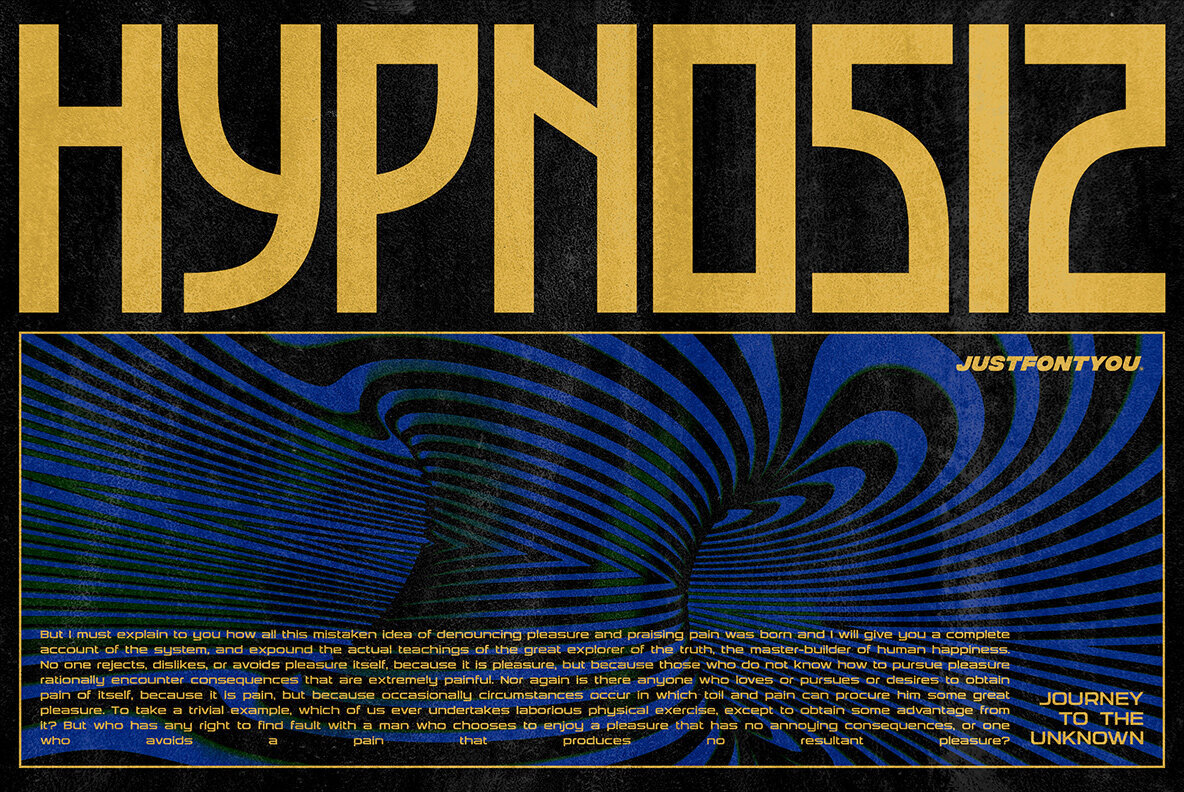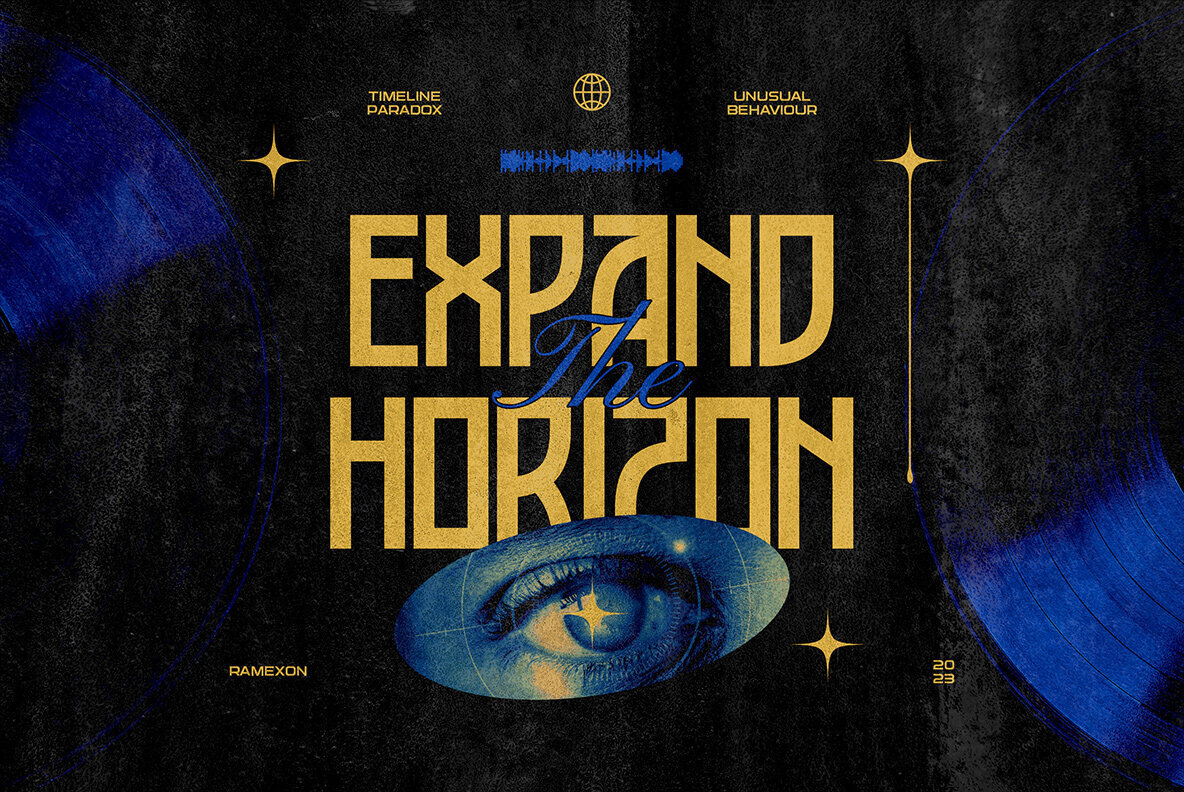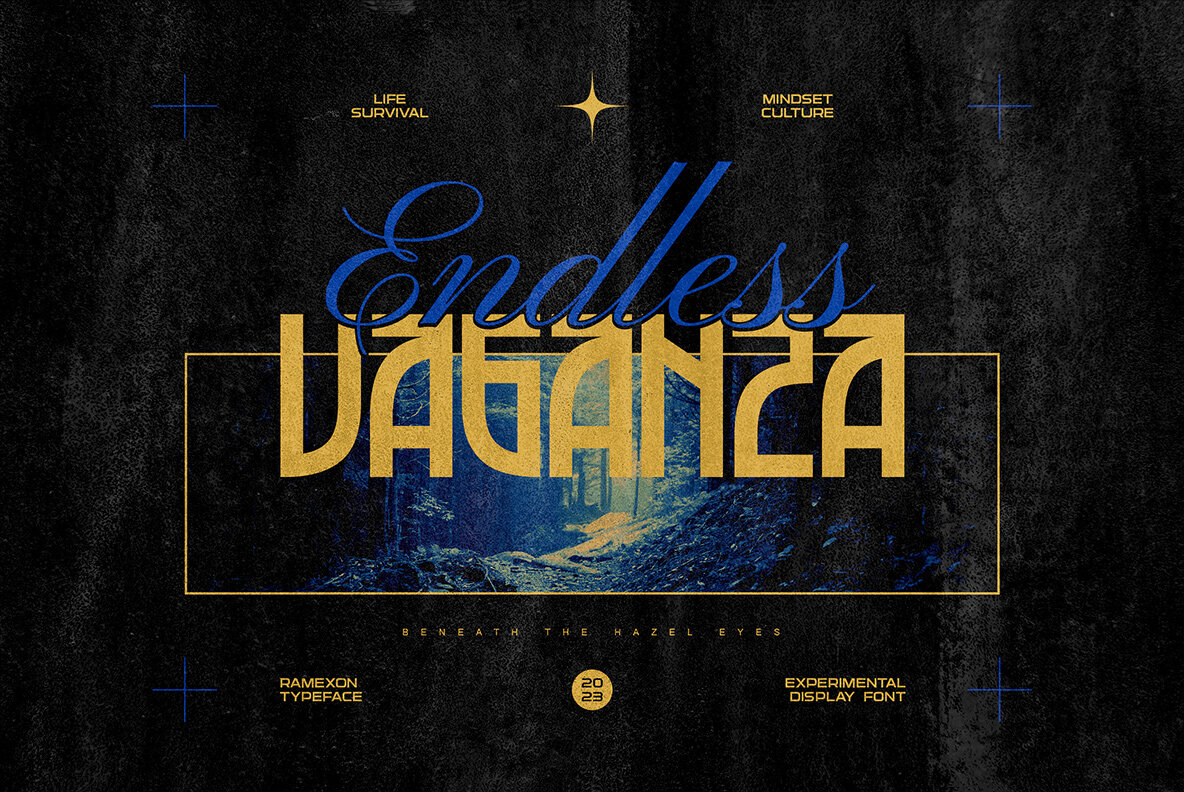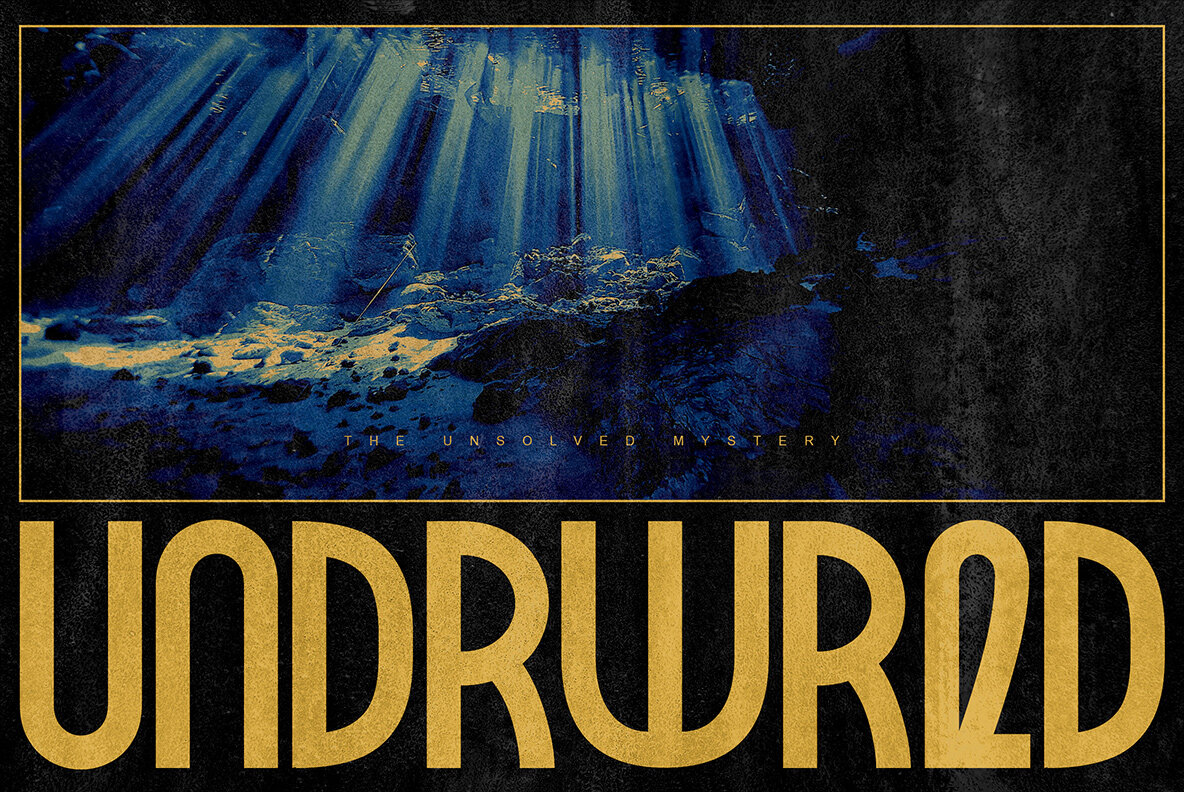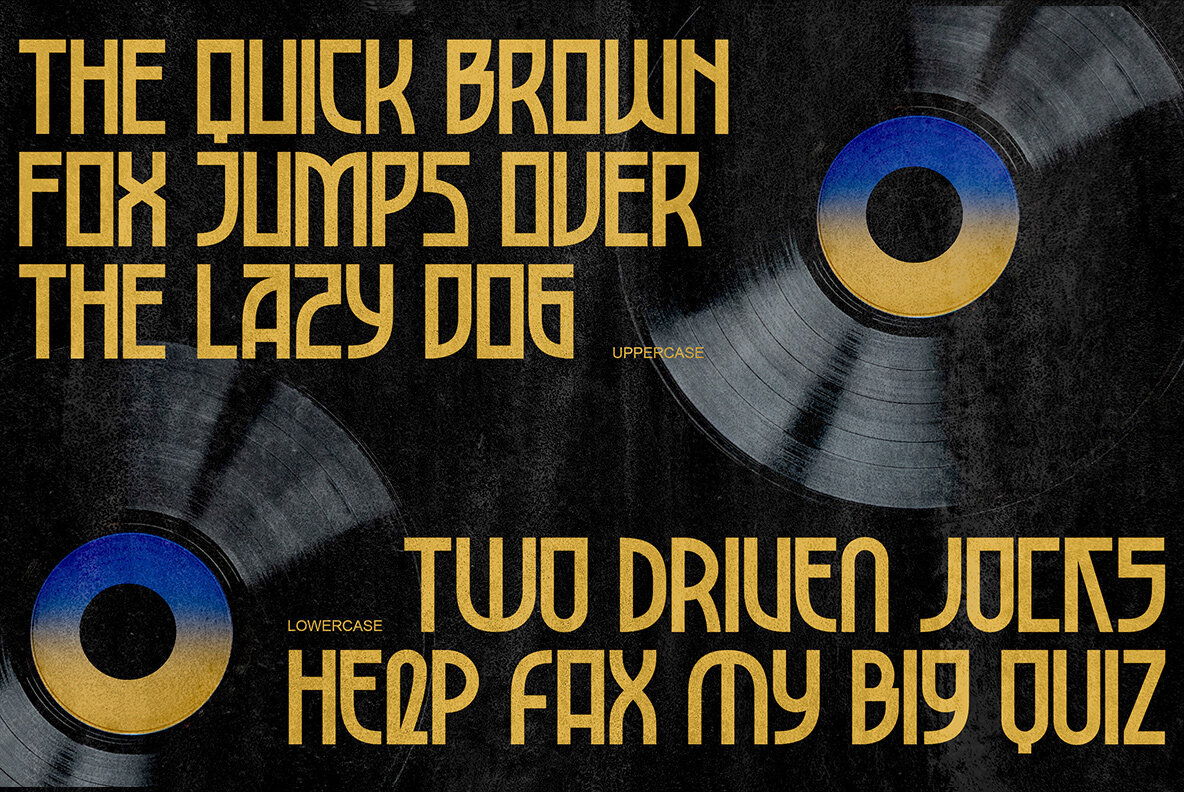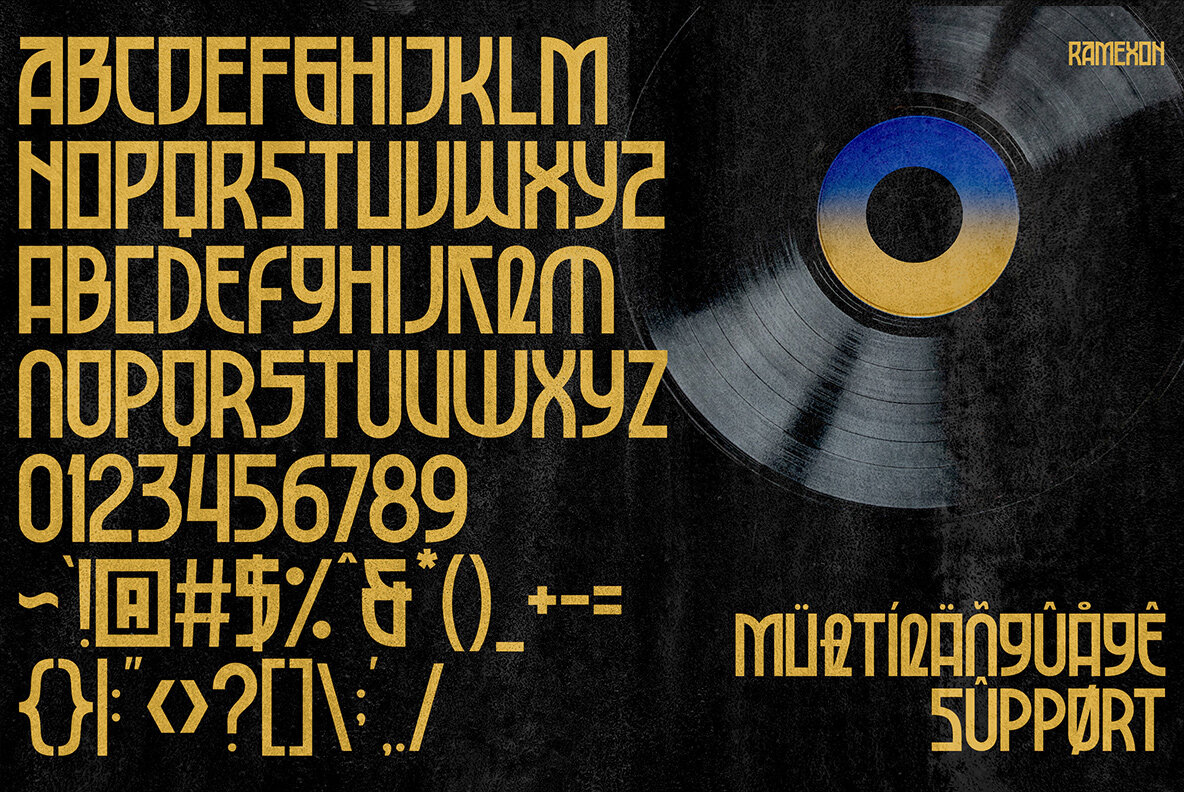
Ramexon Font
Ramexon Regular
Ramexon was born from the breakthrough mindset of experimental typography and anti-design trend in the graphic design industry nowadays. To create something new, fresh, and loud for your visual presence in this saturated world.
With bold, boxy, strong, yet remarkable shape in every character, makes Ramexon is the perfect font to state born-different works.